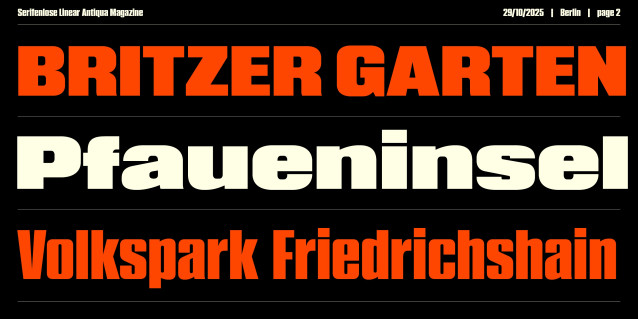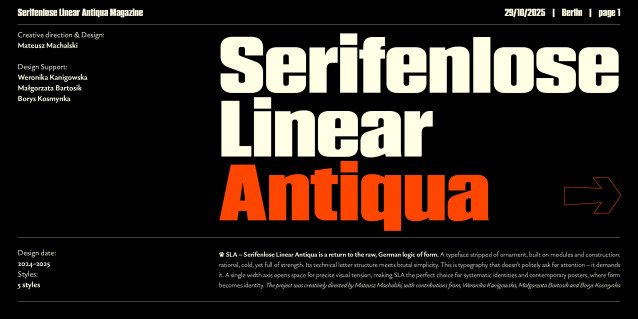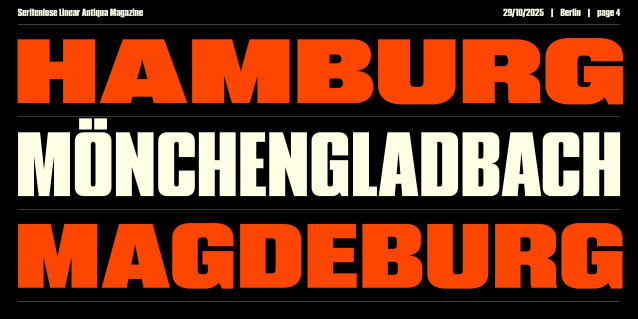
Serifelnose Linear Antiqua Font
Serifelnose Linear Antiqua Font is a return to the raw, German logic of form. A typeface stripped of ornament, built on modules and construction: rational, cold, yet full of strength. Its technical letter structure meets brutal simplicity. This is typography that doesn’t politely ask for attention – it demands it. A single width axis opens space for precise visual tension, making SLA the perfect choice for systematic identities and contemporary posters, where form becomes identity. The project was creatively directed by Mateusz Machalski, with contributions from, Weronika Kanigowska, Małgorzata Bartosik and Borys Kosmynka